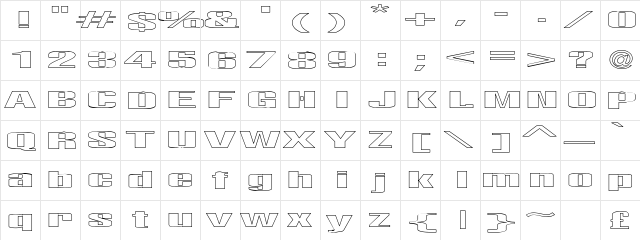
Telford Hollow Regular
Design Context for Telford Hollow Typeface
Telford Hollow is a composed and adaptable typeface that performs quietly and consistently across a wide range of design contexts.
Pro Tip: Use Telford Hollow in both headline and body roles to test its range before committing to a single application.